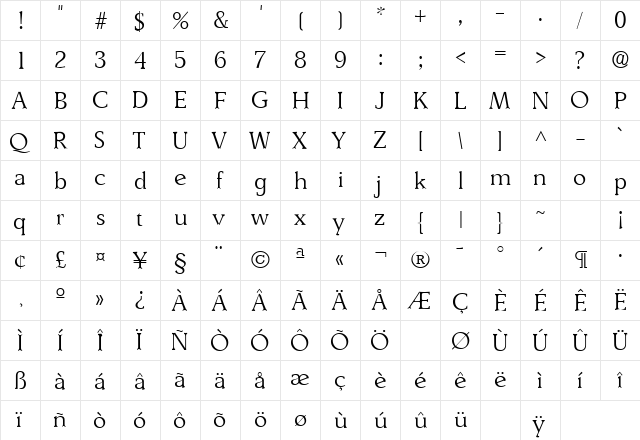
Kitchener Light SF Regular
Design Context for Kitchener Light SF Typeface
Kitchener Light SF takes a measured approach to typography — its balanced proportions and neutral character make it a reliable workhorse for both digital and print work. The delicate stroke weight brings airiness and refinement to layouts.